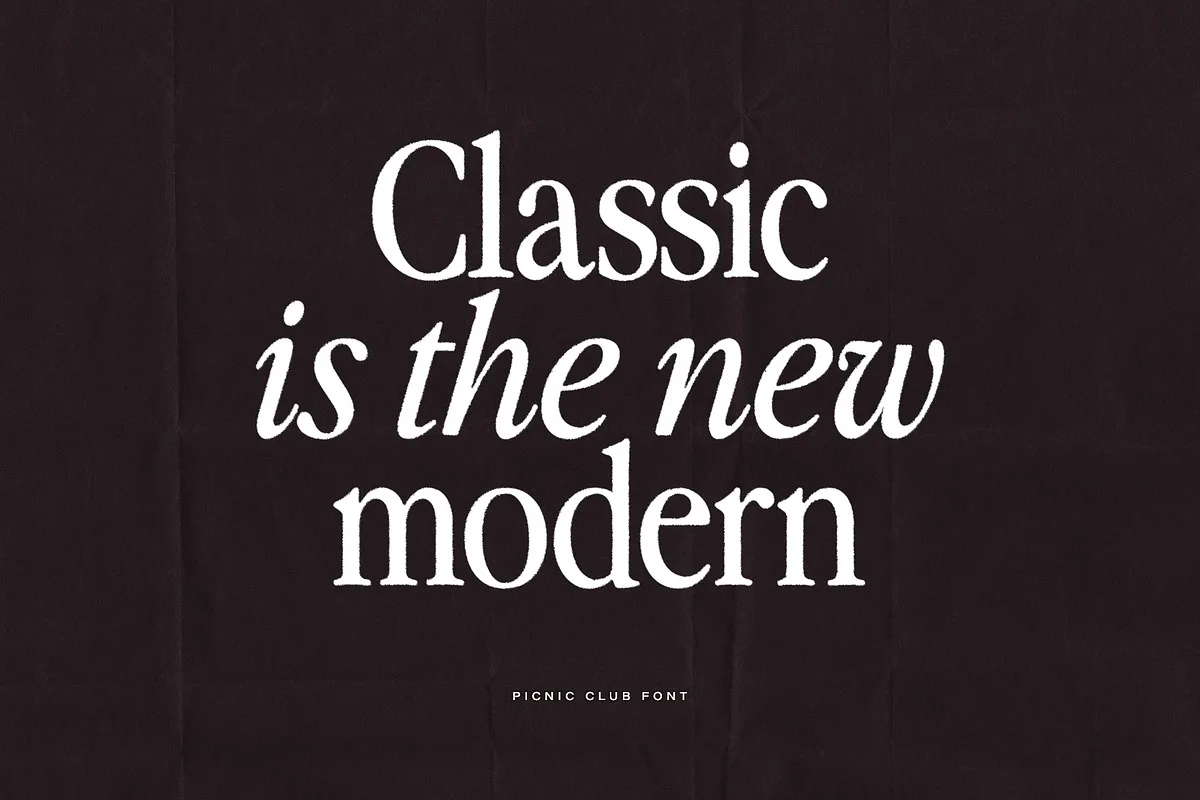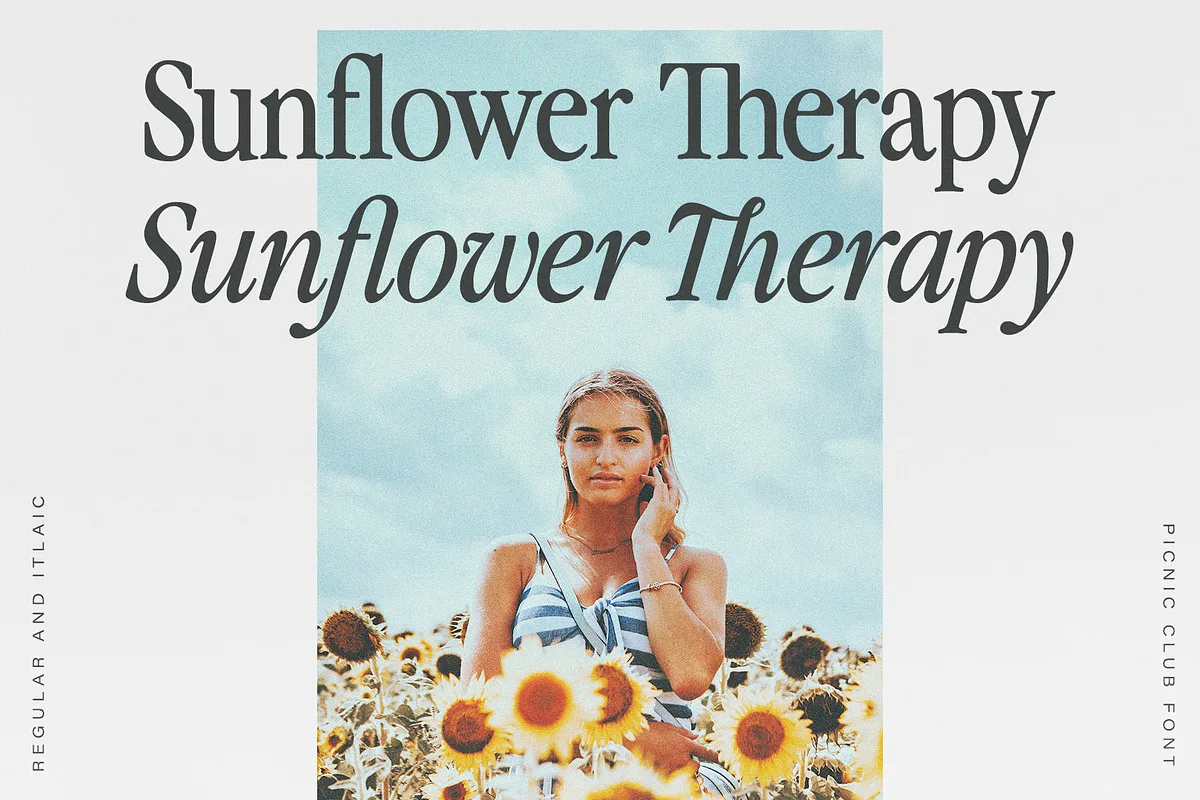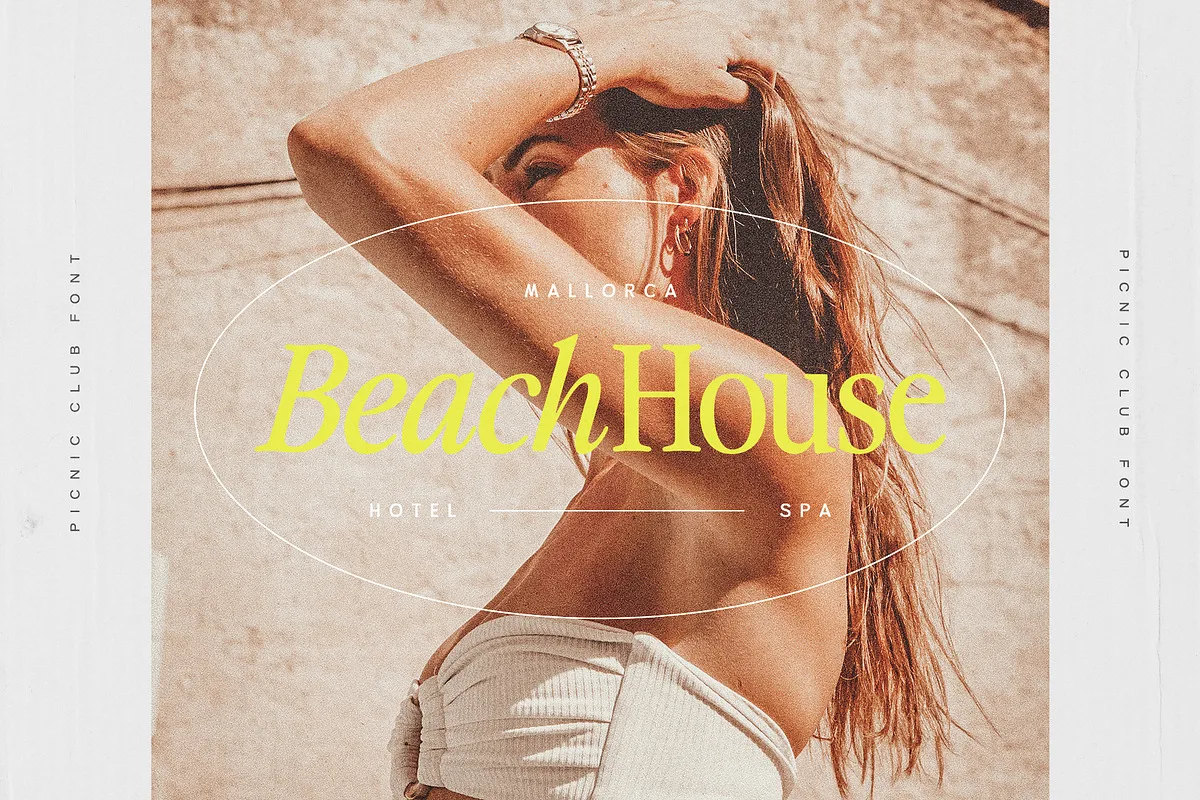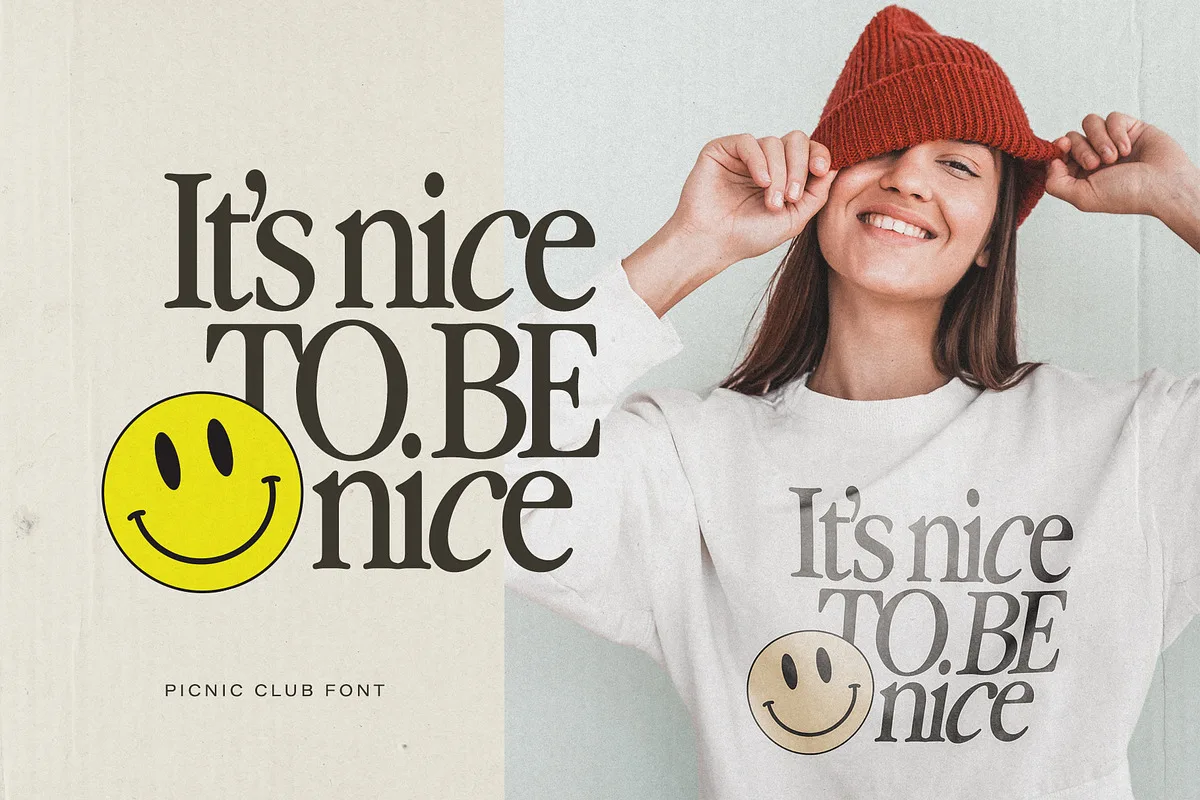
The Picnic Club is a stylish vintage font inspired by 80’s groovy vibe with a touch of modernity. It looks amazing at display sizes and is easily readable in text size. There are two versions of this font : REGULAR and ITALIC.
Picnic Club is a display font made mainly for headlines, titles, and other short texts and is well-suited for advertising, vintage mood board, branding, logotypes, packaging, titles, editorial design and modern and vintage design.
The Picnic Club Font: Nostalgic Serif